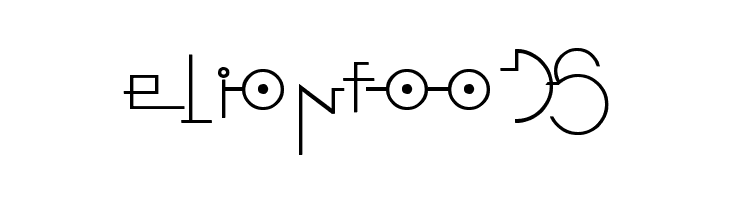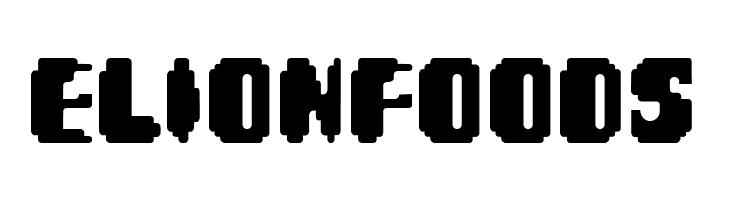
( Fonts by Christopher Hansen )
A classic serif font with elegant, sharp serifs and subtle medieval influences.
A geometric and abstract font with thin lines and circular elements, offering a modern and futuristic look.
A modern, geometric font with a futuristic and minimalistic style.
( Fonts by Steve Ferrera )
A futuristic, playful font with rounded, worm-like shapes.